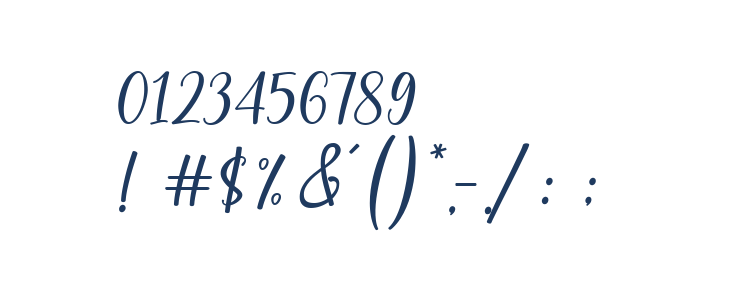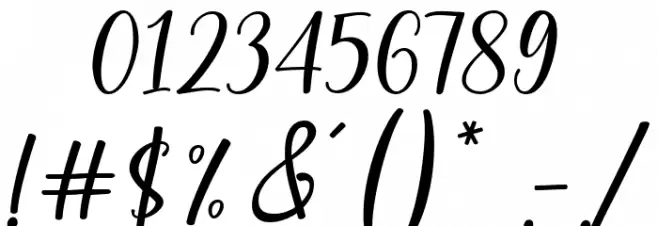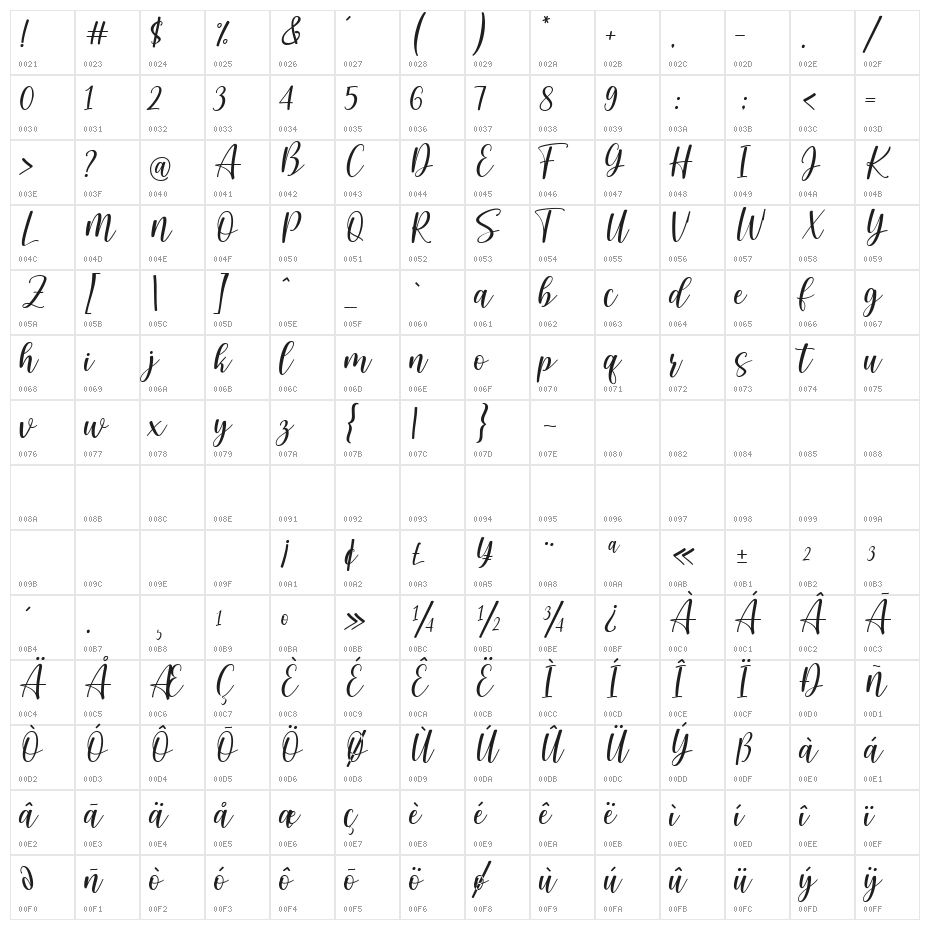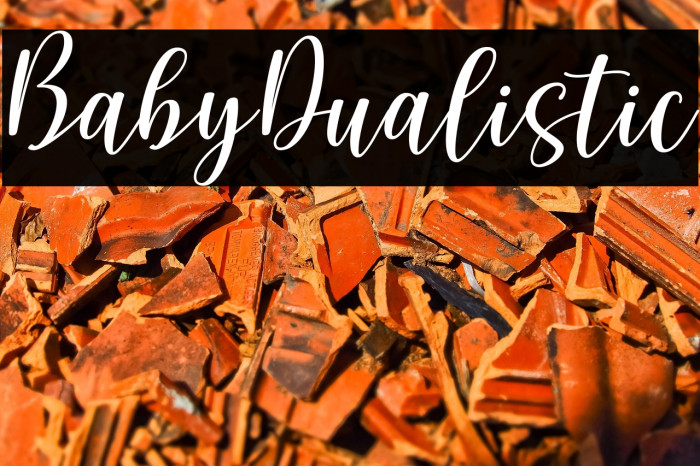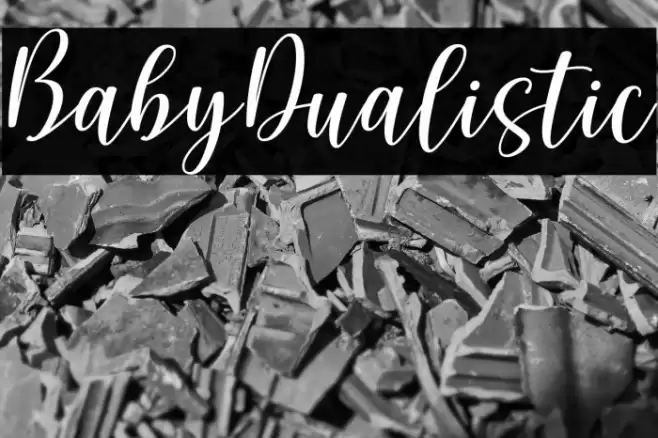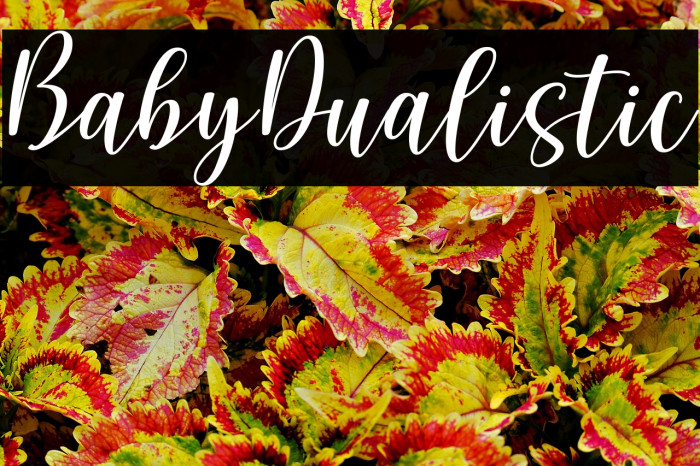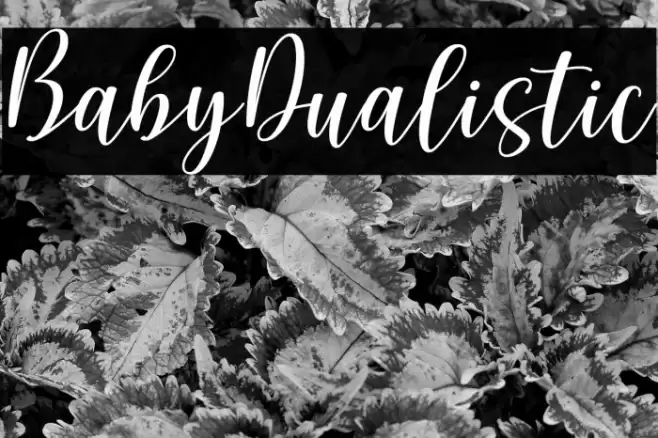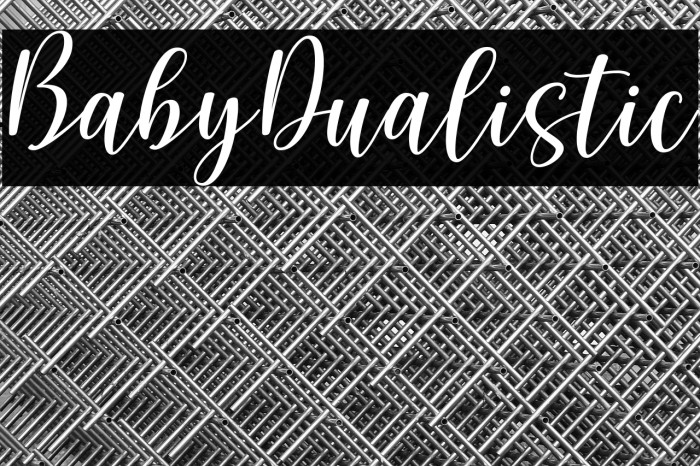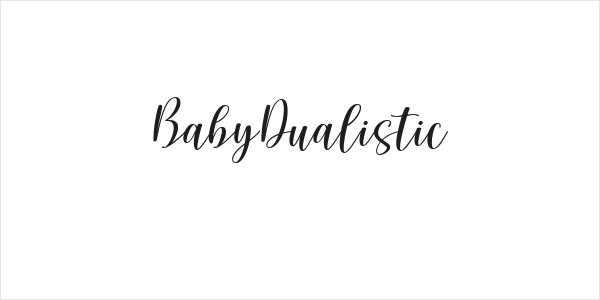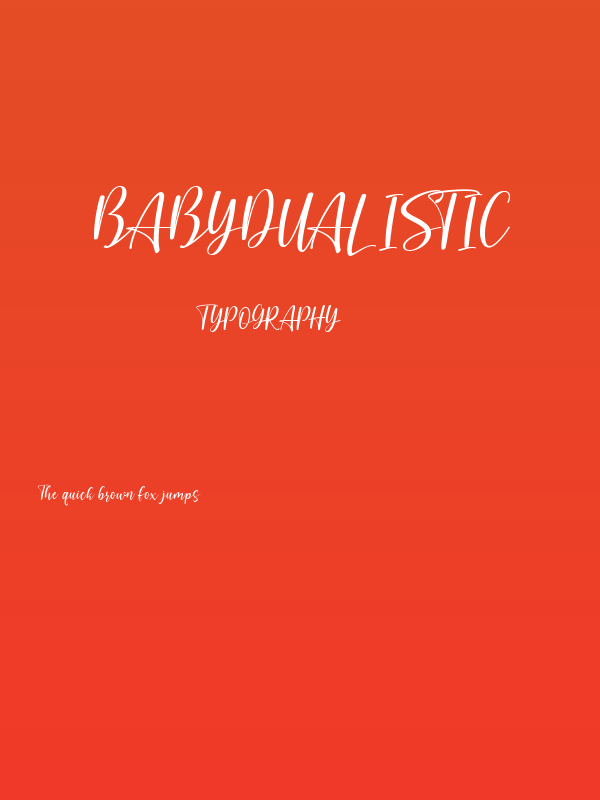
BabyDualistic Font
BabyDualistic Description
This font features an elegant and flowing script style, characterized by its smooth, cursive strokes and a sense of fluidity. The uppercase letters are tall and graceful, with sweeping lines that give a sense of movement. The lowercase letters maintain a consistent flow, with rounded forms and delicate connections between characters. The numerals are stylish and match the overall aesthetic, while the special characters complement the script with their own flair. This font exudes a sense of sophistication and charm, making it ideal for projects that require a personal touch.
| Proposed Projects | Ideal for wedding invitations, greeting cards, branding, and elegant packaging. |